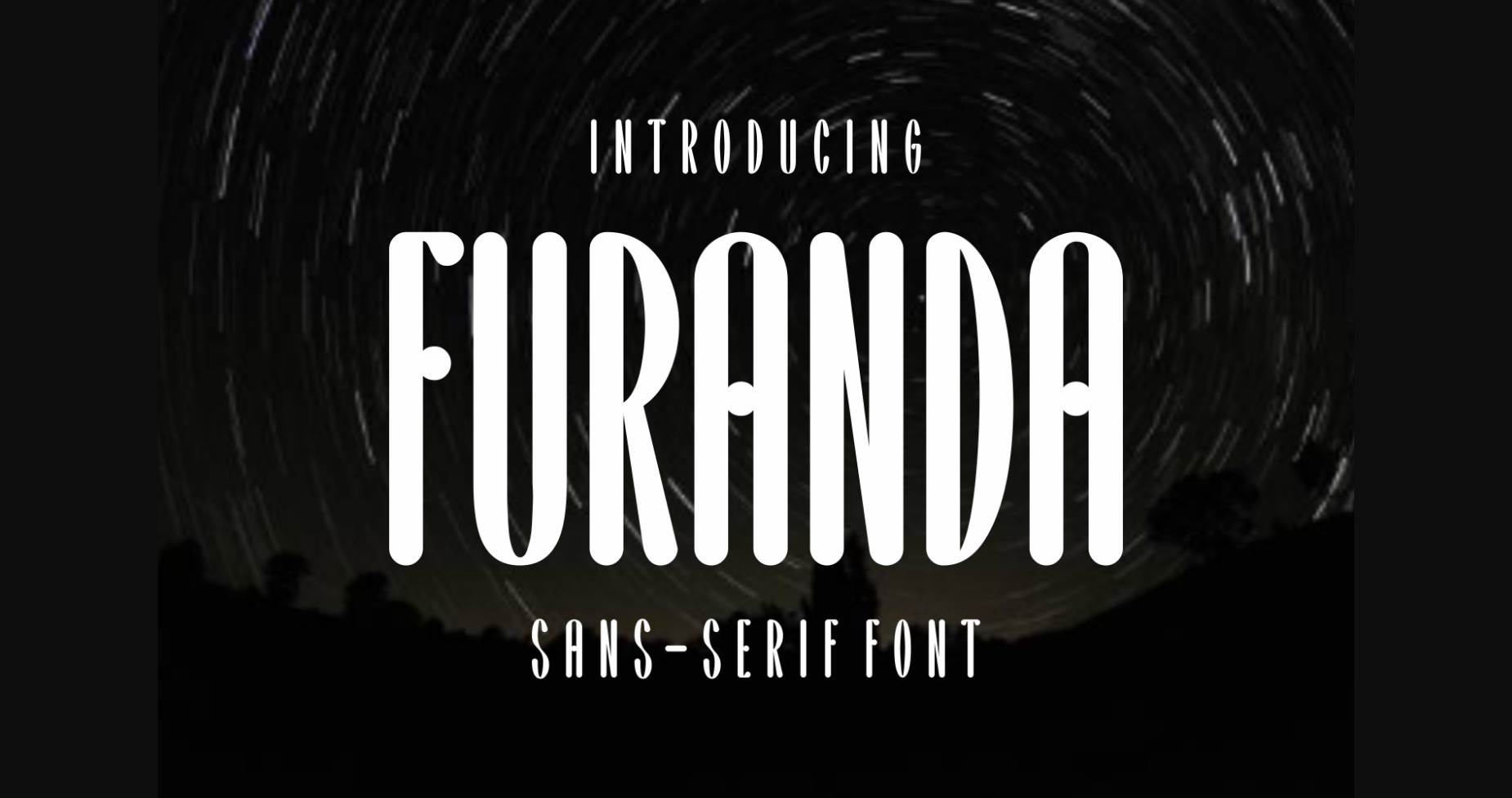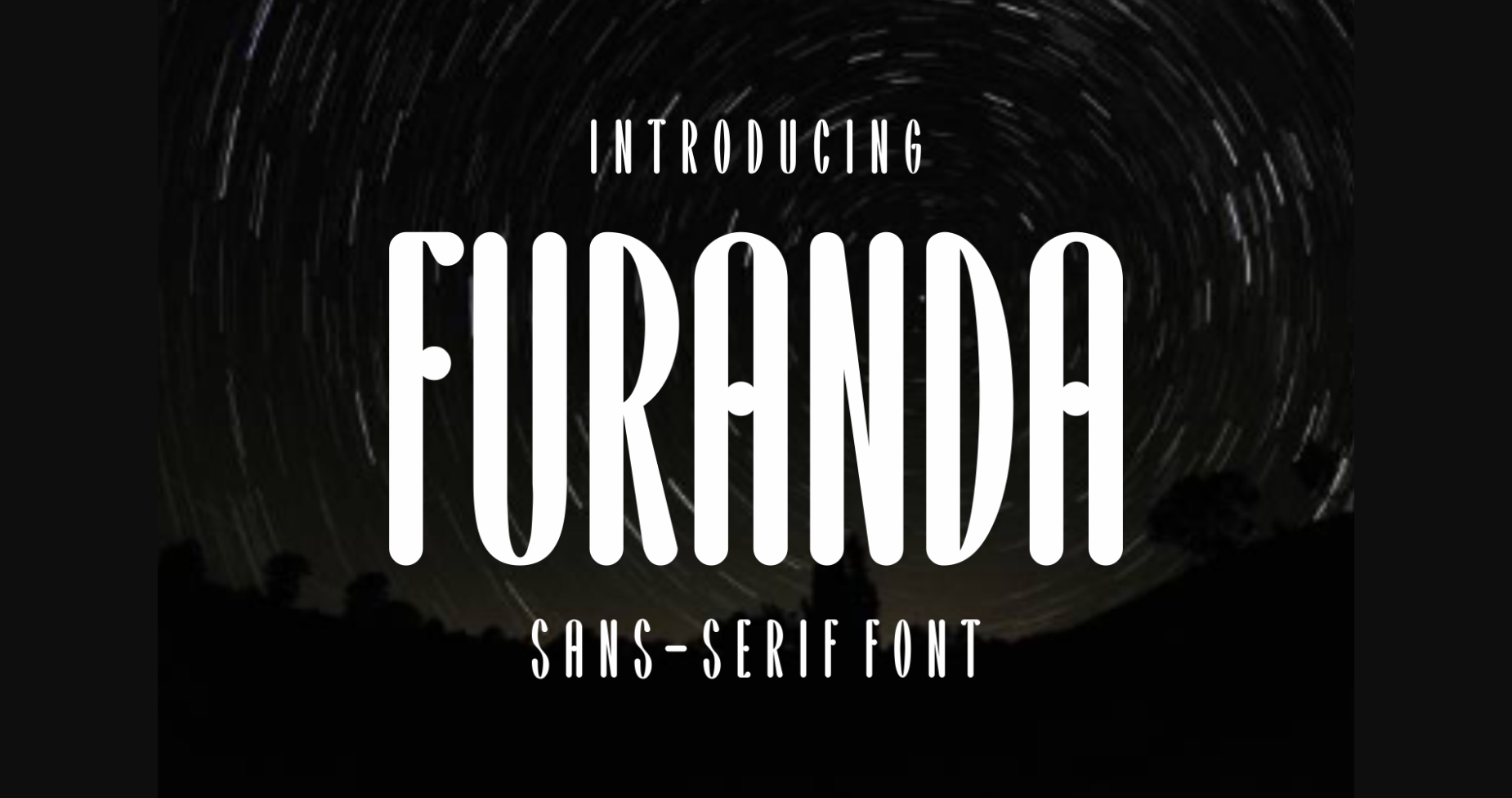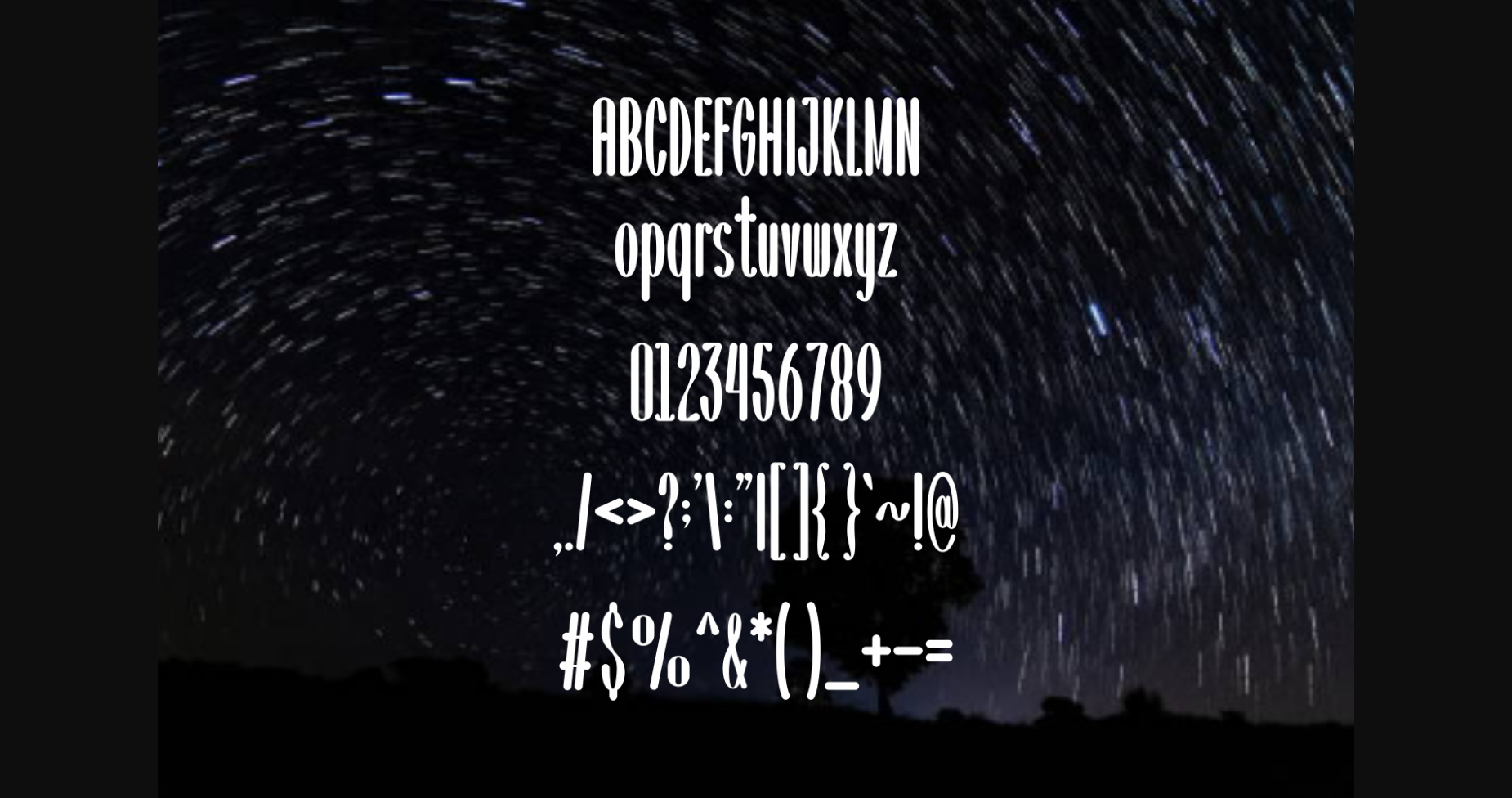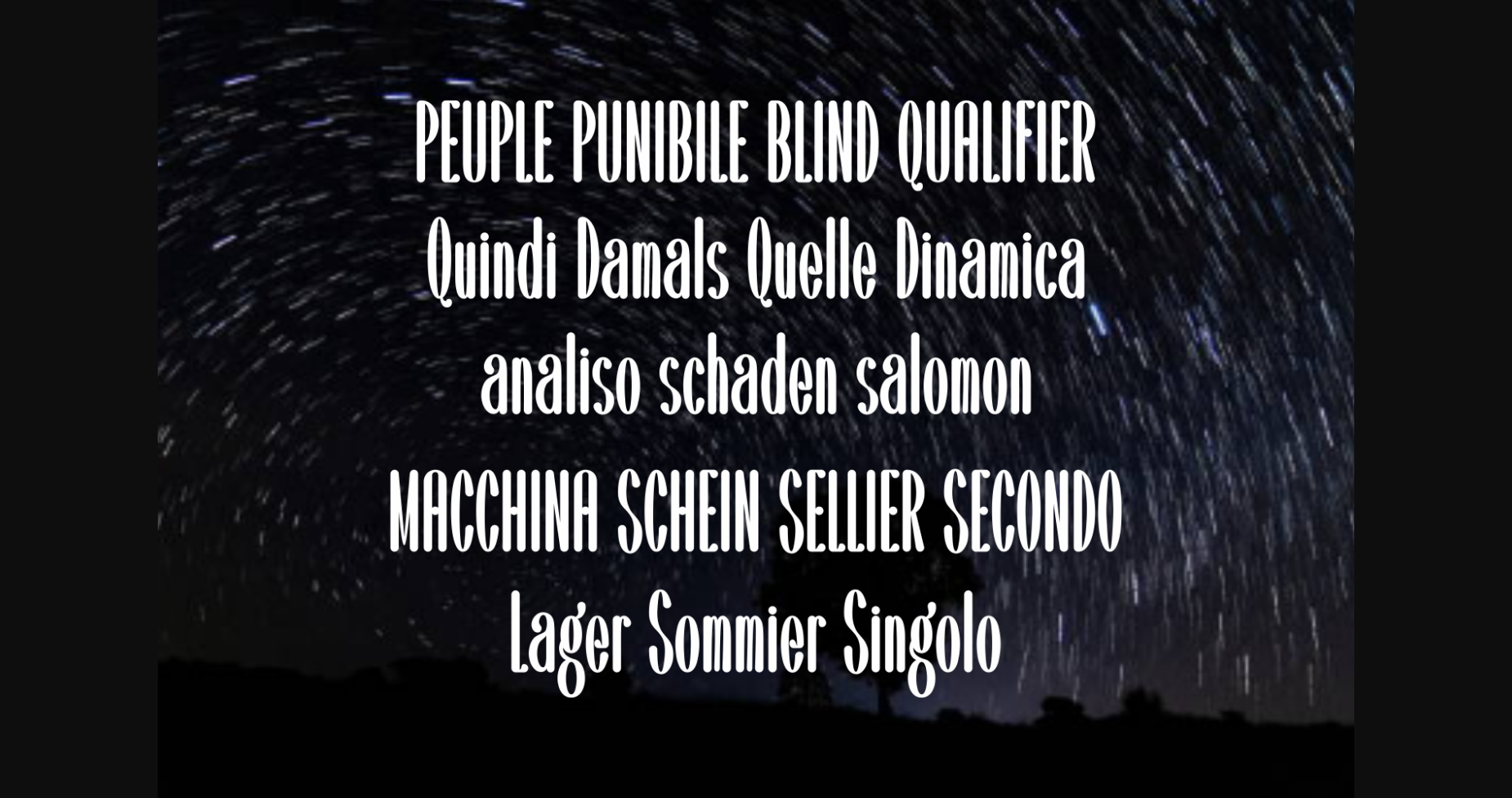
About Furanda Font
Furanda is a clean and attractive sans-serif font, featuring sleek lines and a modern feel. Perfect for any project, with a hint of sophistication and minimalism sure to make an impact. A timeless font that will never go out of style.